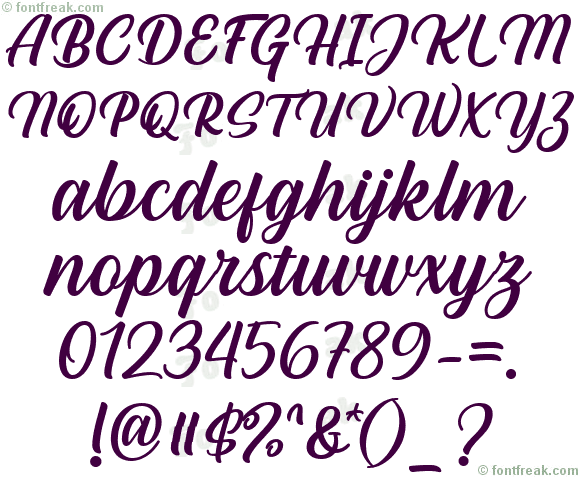
Hestina
About Hestina
Hestina, designed by Situjuh Nazara and released in 2018, is a captivating script font that exudes elegance and charm. This typeface stands out with its fluid, cursive style that combines artistic flair with readability, making it perfect for various design applications. The strokes of Hestina have a moderate weight, striking a balance between boldness and delicacy, while the smooth curves create a sense of movement and warmth. The letterforms are well-spaced, enhancing legibility without sacrificing the font's decorative appeal.
This versatile font is particularly suited for wedding invitations, where its graceful lines can convey romance and sophistication. It also works beautifully in branding projects, helping small businesses create a unique identity that resonates with their target audience. Additionally, Hestina can enhance restaurant menus, giving a touch of class that elevates the dining experience. Graphic designers can also utilize this font for social media graphics, where its eye-catching style can attract attention and engagement.
In a crowded marketplace of typefaces, Hestina stands out for its distinctive script style, combining beauty with functionality. Its fluid strokes and thoughtful design elevate any project, making it a valuable addition to any designer's toolkit. For those looking to explore its charm, the Hestina font free download provides an excellent opportunity to incorporate this stunning typeface into their work.